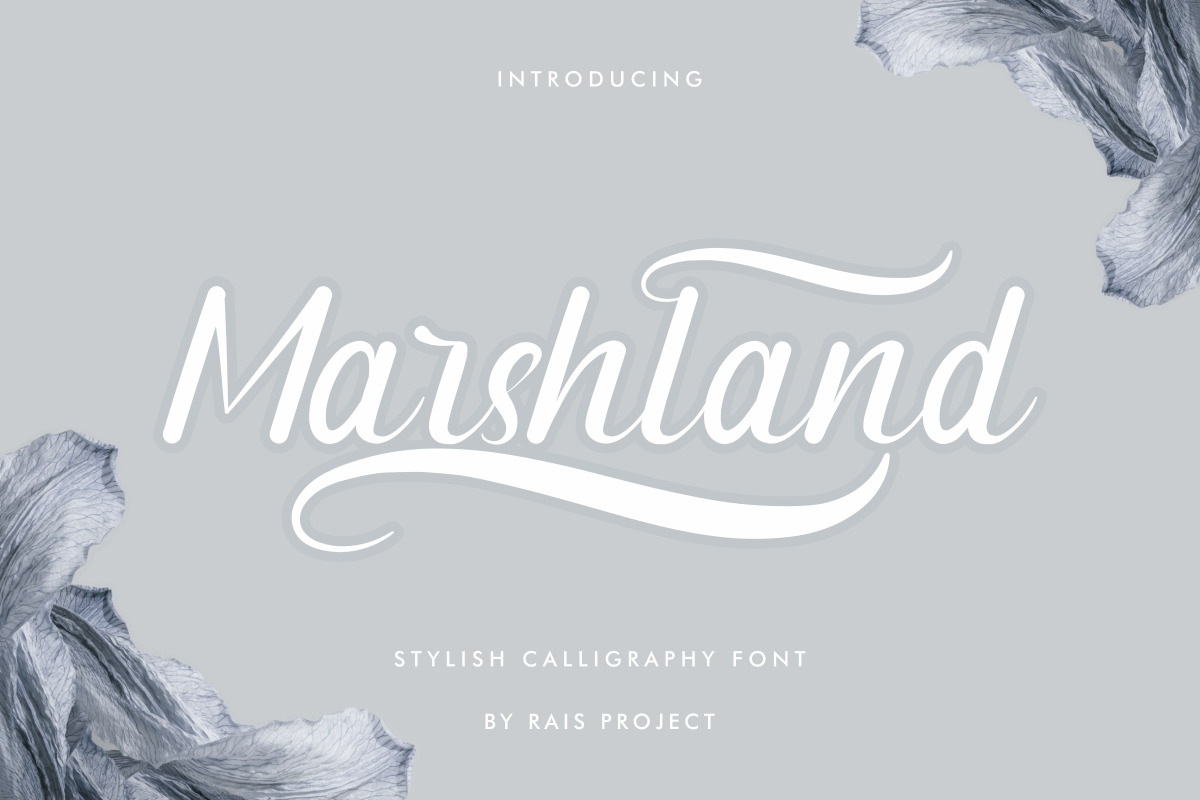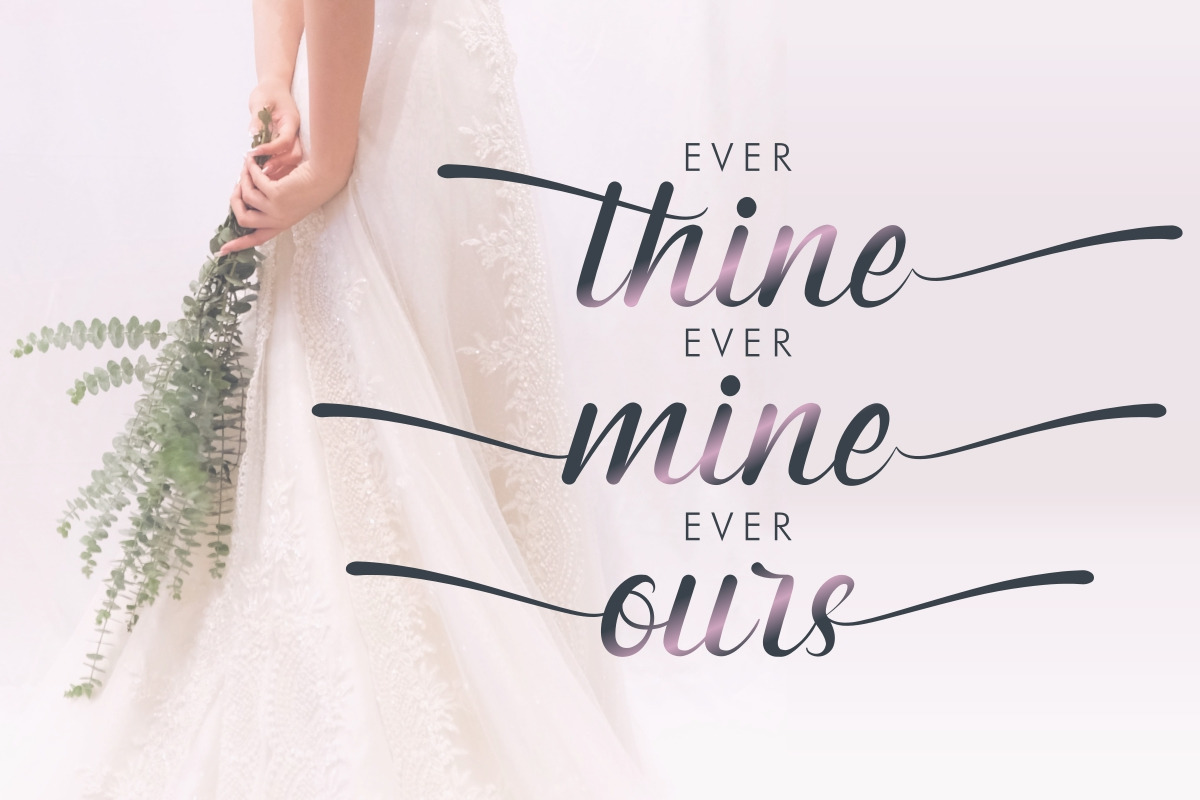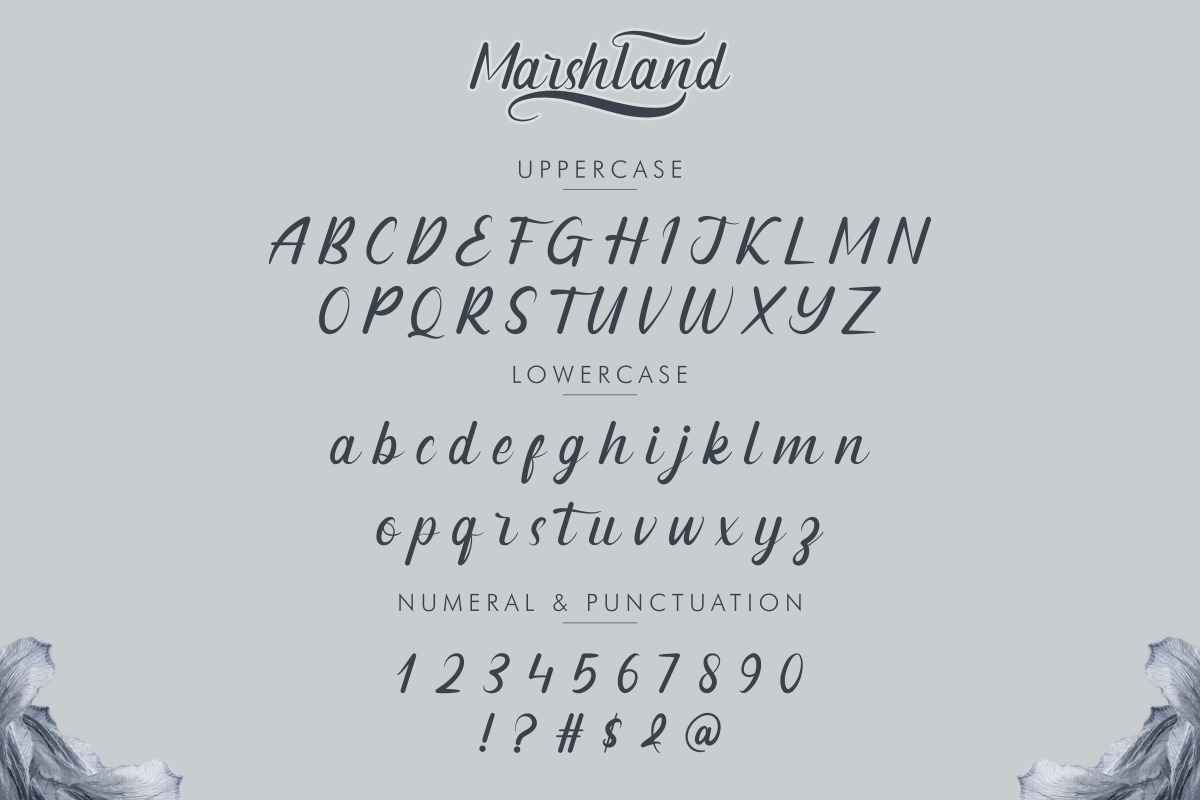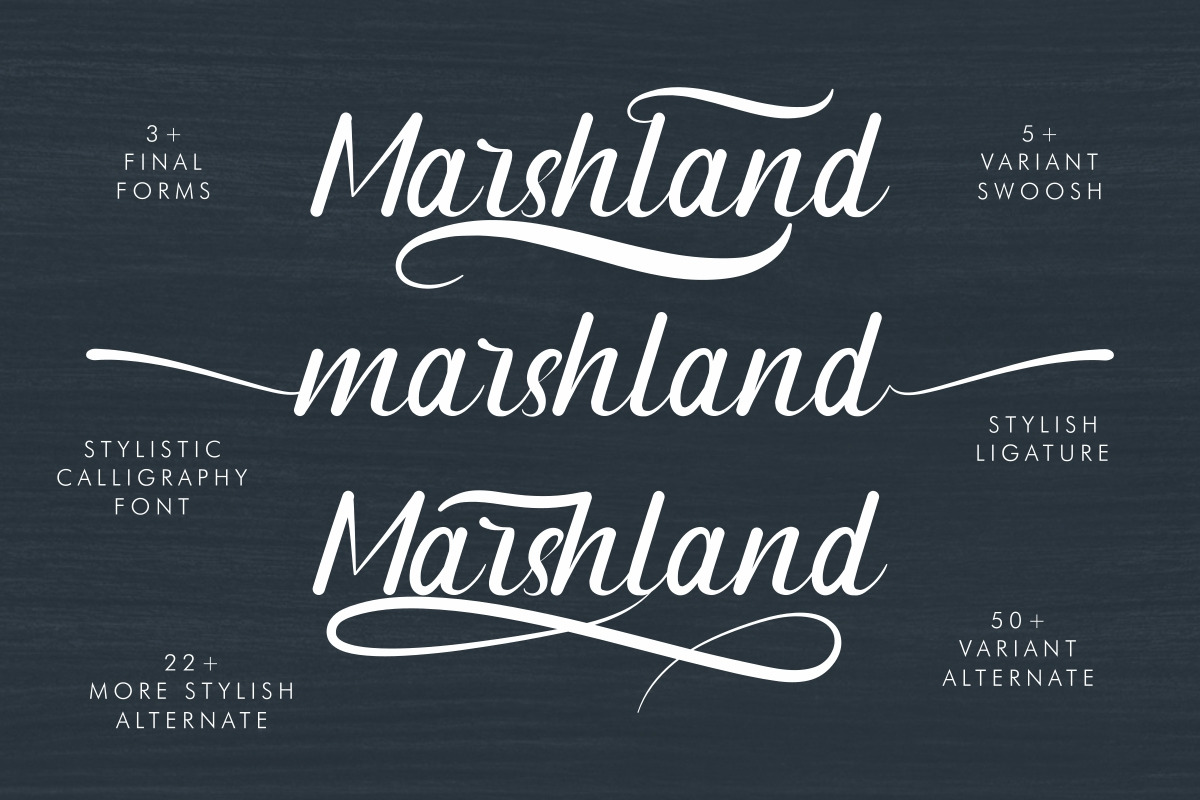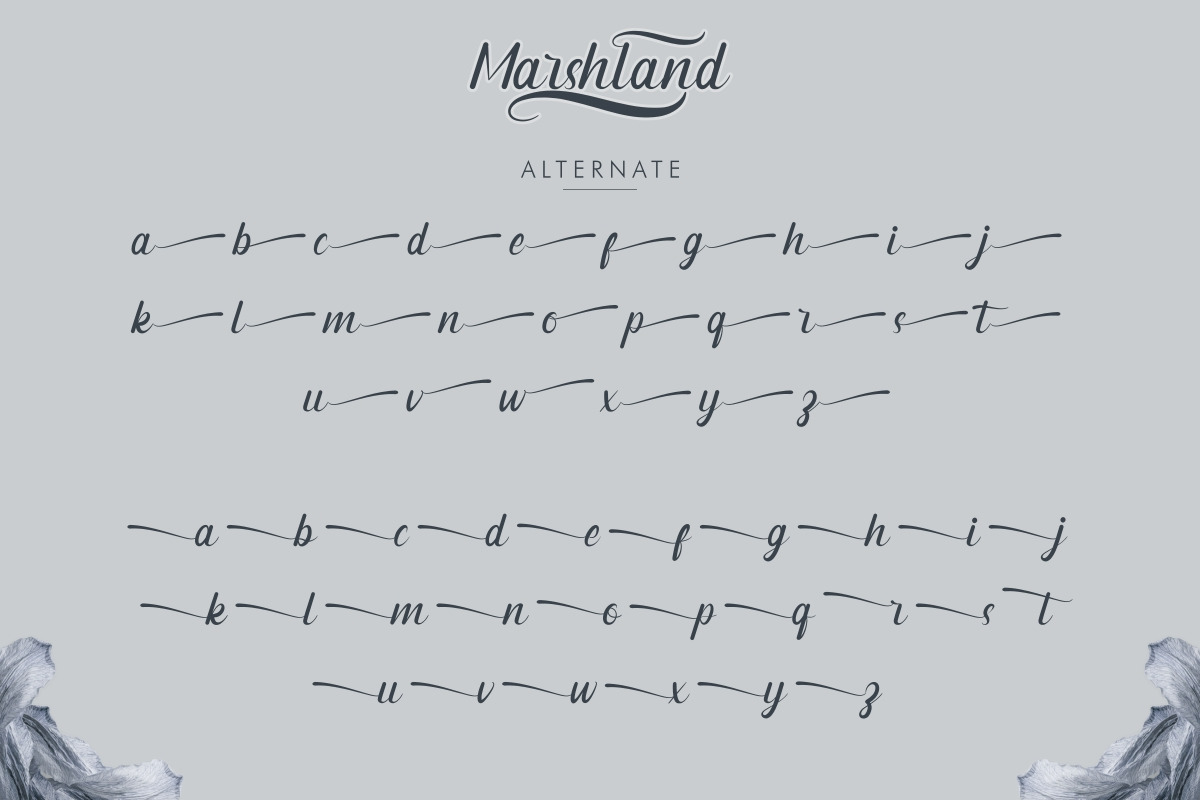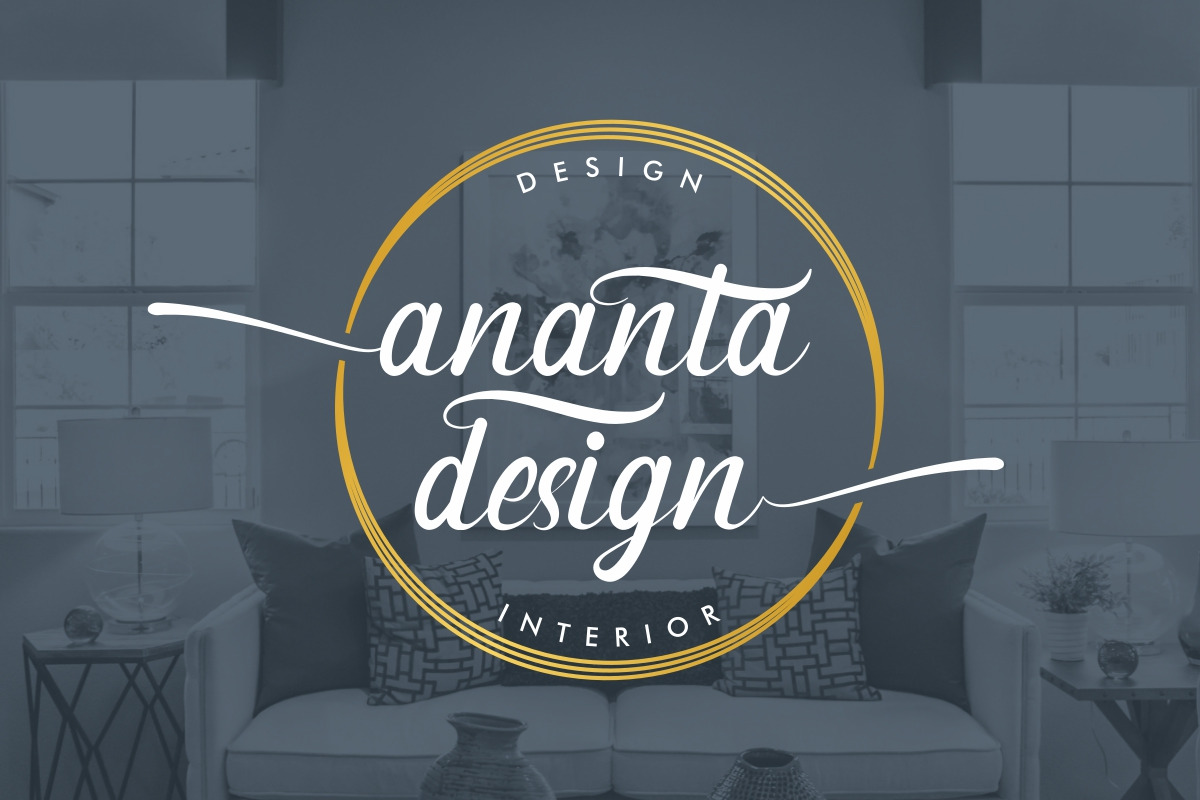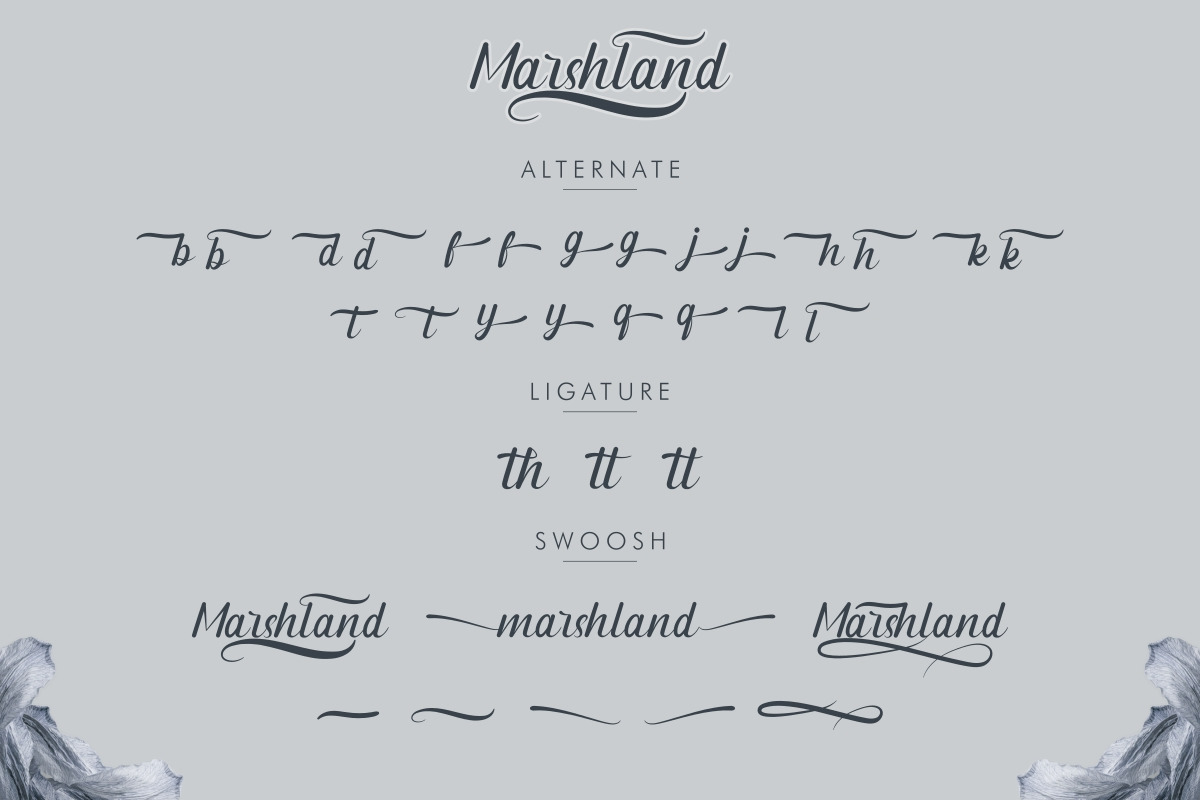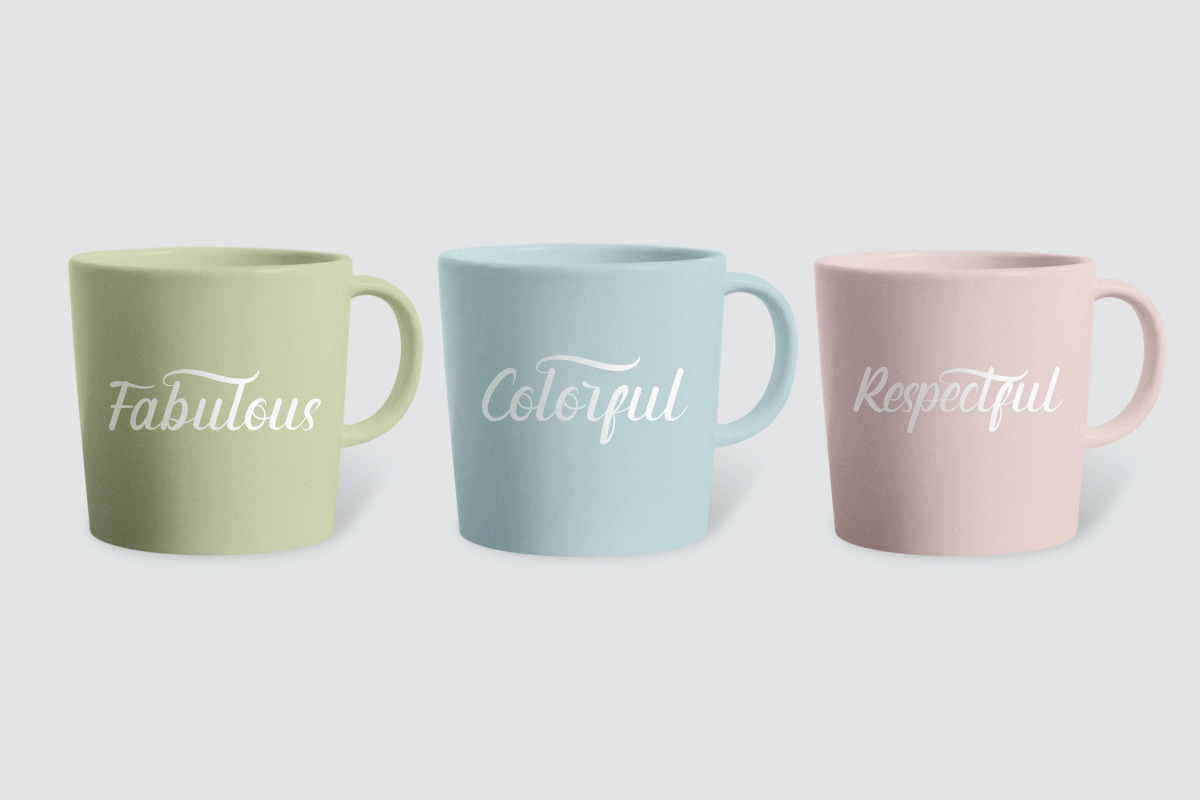
Marshland Elegant Calligraphy Font
Marshland Font is a beautiful script font with calligraphy handwriting style. It will be awesome for any your special projects including : weddings, promotion, events, branding, advertising etc
Marshland Font includes full set of gorgeous uppercase and lowercase letters, numerals, a large range of punctuation and ligatures. All letters has realistic hand-lettered style to make it unique yet stunning design.